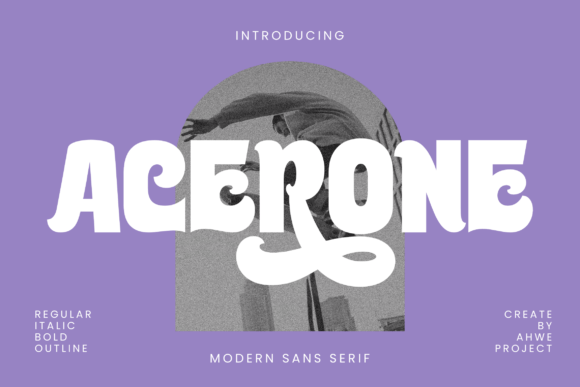
In a world saturated with monotonous fonts, Acerone emerges as a captivating sans-serif display typeface, a breath of fresh air that will revolutionize your creative projects. Its distinctive letterforms, infused with a playful and fun theme, will make your designs pop with personality.
Immerse yourself in a world of limitless possibilities, where Acerone's versatility knows no bounds. Whether you're crafting eye-catching logos, formal invitations, or heartfelt greeting cards, Acerone adapts seamlessly, adding a touch of elegance and charm to every creation.
With Acerone, you hold the key to unlocking a universe of design opportunities. Transform ordinary text into captivating headlines, let your imagination soar as you craft stunning labels and packaging, and watch your fashion and make-up designs come alive with a touch of playful sophistication.
Step into the realm of extraordinary typography, where Acerone's allure knows no limits. Its meticulously crafted characters add a touch of magic to magazines and books, bringing stories to life with an immersive charm. Unleash your creativity and explore the endless possibilities that await you.
Experience the beauty of seamless fusion as Acerone effortlessly complements your stationery designs, adding a touch of whimsy to everyday correspondence. Elevate your novels with captivating typography that draws readers into your literary worlds. Join the ranks of discerning designers who recognize the power of Acerone, a font that captivates and inspires.